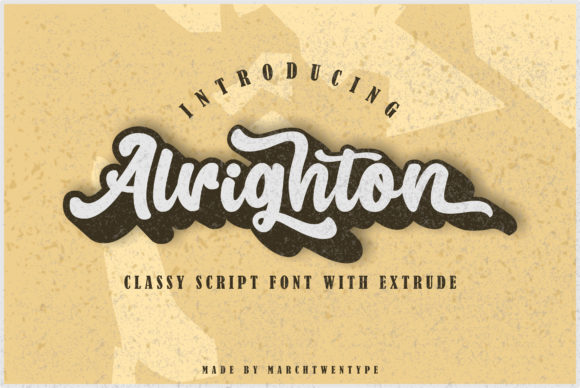
Prepare to be mesmerized by Alrighton, the captivating script font that exudes boldness and charm. Its retro style adds an instant touch of nostalgia, while its handwritten strokes evoke a sense of authenticity and warmth. This remarkable font is perfect for crafting eye-catching headlines that demand attention and logos that leave a lasting impression.
Immerse yourself in the world of Alrighton, where your designs will radiate strength, confidence, and dynamism. Unleash your creativity and let Alrighton's unique character shine through, whether you're working on social media graphics, branding projects, or any other design endeavor.
With Alrighton, you'll discover a font that truly embodies boldness. Its thick, solid strokes command attention, making it the perfect choice for creating unforgettable branding elements. Elevate your social media presence with striking hashtags that leap off the screen, or design logos that exude authority and confidence.
Let Alrighton empower your creativity and transform your designs into masterpieces. Its versatility knows no bounds, allowing you to effortlessly create designs that ooze sophistication and timeless appeal. Embrace the allure of Alrighton and embark on a creative journey that will leave your audience captivated.